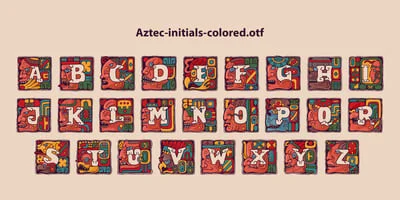
Aztec Initials Font
Aztec Initials Font is ideal for cultural heritage projects, museum exhibition designs, historical documentary graphics, Mexican restaurant branding, archaeological publication covers, and ancient civilization-themed educational materials.
Aztec Initials Font is exciting because it authentically captures the powerful symbolism and intricate artistry of pre-Columbian civilizations, offering designers a unique typeface that connects modern projects with ancient cultural wisdom.
The Aztec Initials Font family includes ceremonial variations: Aztec Initials Regular, Aztec Initials Bold, decorative border elements, traditional pattern ornaments, and sacred symbol alternatives inspired by authentic Mesoamerican art.
Discover ancient artistry with Aztec Initials Font, a magnificent typeface that brings the mystical power and cultural richness of Aztec civilization to contemporary design projects. This extraordinary font excels in creating impactful branding for cultural centers, ethnic restaurants, historical societies, and educational institutions that celebrate indigenous heritage and ancient wisdom. The intricately crafted letterforms feature authentic geometric patterns and symbolic elements derived from traditional Aztec codices and stone carvings, while maintaining modern functionality for today's design needs. Perfect for anthropology textbooks, travel guides to Mexico, cultural festival posters, and artistic installations that honor pre-Columbian traditions, this font communicates respect for ancient civilizations with every character. Each initial tells stories of emperors and temples, making headlines feel like sacred inscriptions carved in digital stone. Aztec Initials Font transforms contemporary communications into timeless tributes that bridge thousands of years of human creativity and cultural expression.